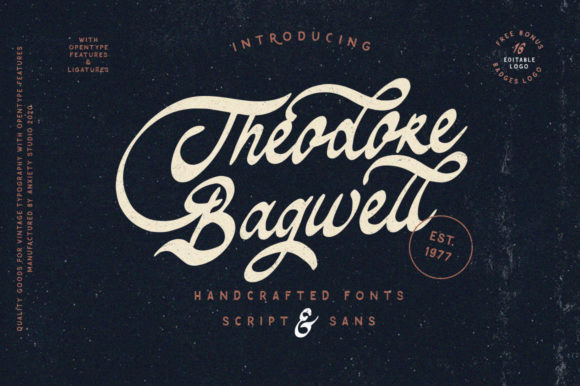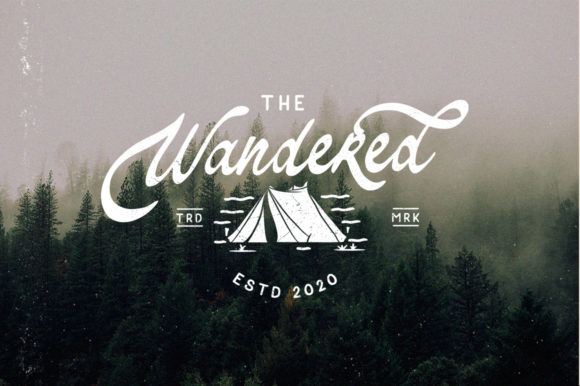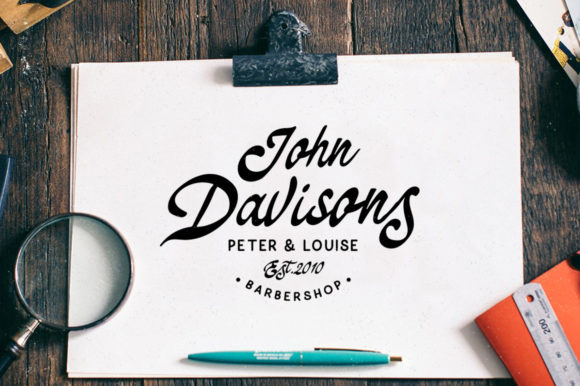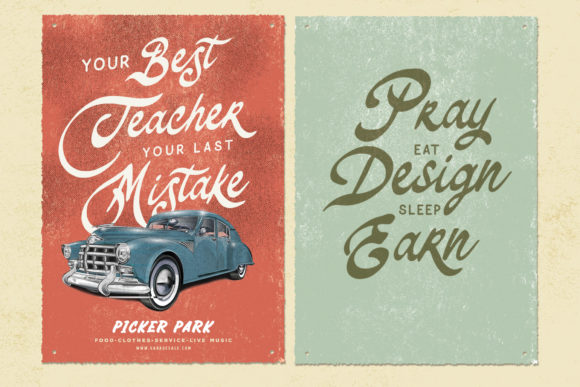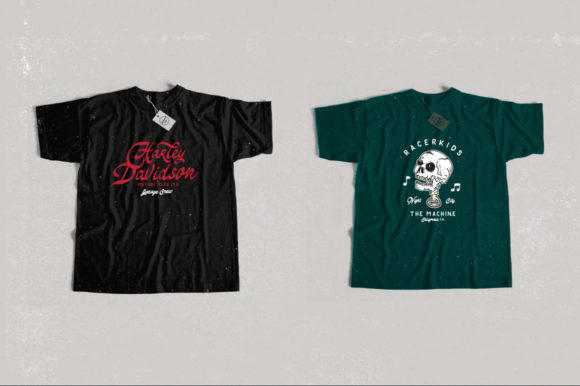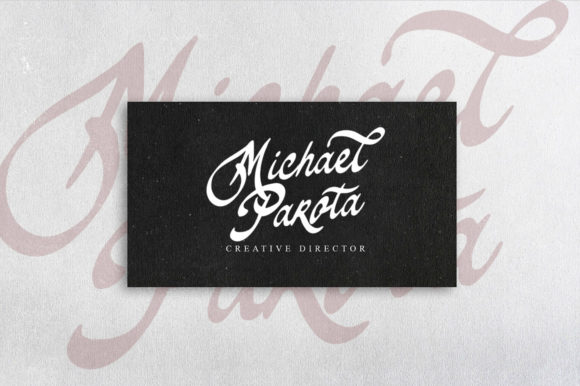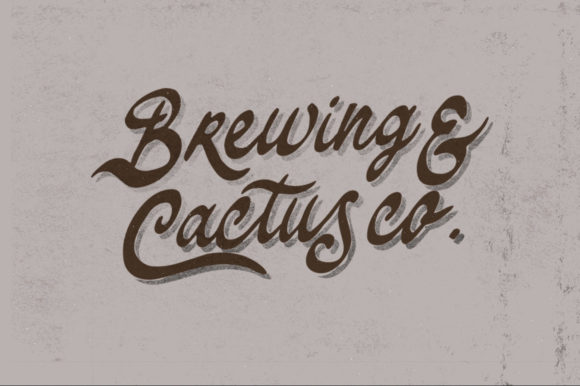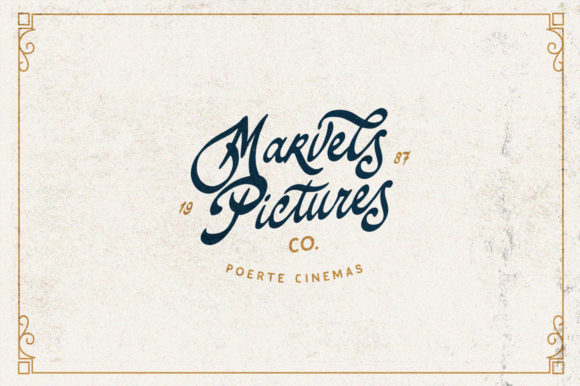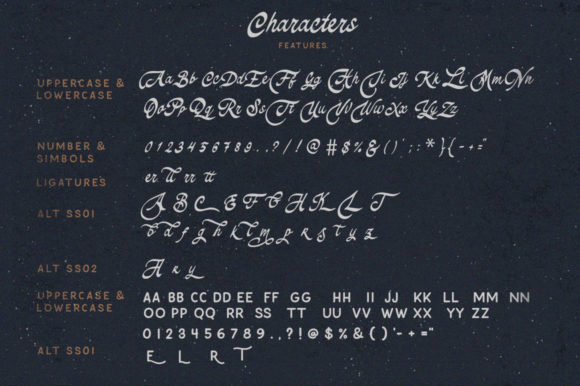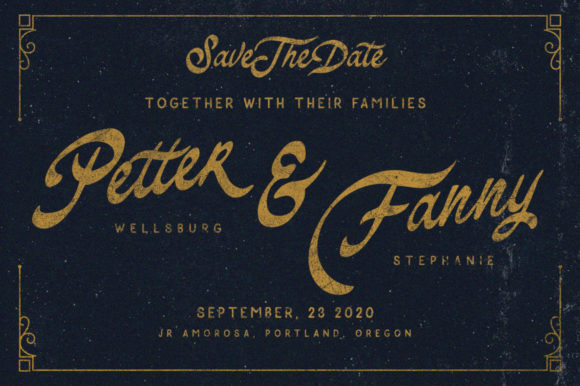
Theodore Bagwell Font
About Theodore Bagwell Font
Theodore Bagwell is a vintage styled duo font (handwritten and sans serif). Incredibly versatile, this font fits a wide pool of designs, elevating them to the highest levels. Add this font to your favorite creative ideas and notice how it makes them come alive!